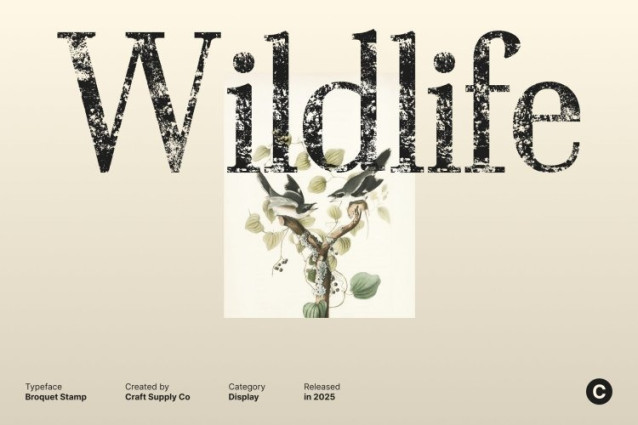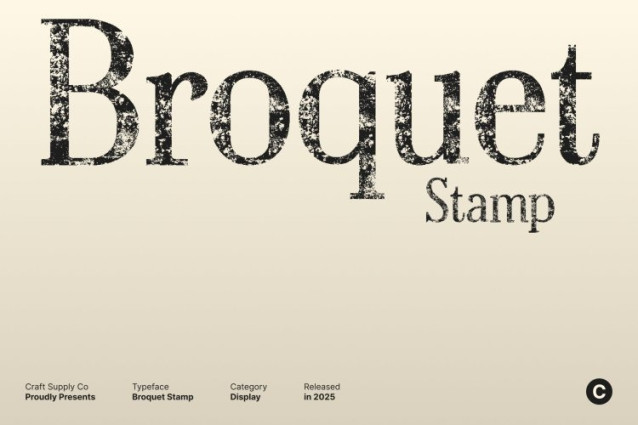
Broquet Stamp Font
Broquet Stamp Font This is a modern serif font featuring clean, slender lines that create a polished and professional appearance. Its well-balanced proportions and refined shapes make it highly versatile for a variety of design applications. The font exudes contemporary elegance while maintaining readability, making it an ideal choice for designers seeking a sophisticated yet approachable typeface.
Stamp Texture Adds Personality
The distinctive stamp texture introduces character and expressiveness to this font. Each letter carries a handcrafted feel, creating visual depth and artistic flair. This textured finish transforms the modern serif into a dynamic display font that feels both professional and creatively rich, making it stand out in any layout.
Perfect for Branding, Posters, and Editorial Layouts
This font excels in applications that demand clarity and style. From luxury branding and editorial spreads to posters and promotional materials, its clean lines combined with textured details ensure your content is both readable and visually engaging.
A Harmonious Blend of Timeless Design and Artistry
By combining a modern serif structure with a textured, artistic stamp effect, delivers the perfect balance between timeless design and creative expression. Its elegant forms, coupled with expressive texture, make it suitable for high-end branding, editorial work, and creative projects that require both professionalism and visual personality.